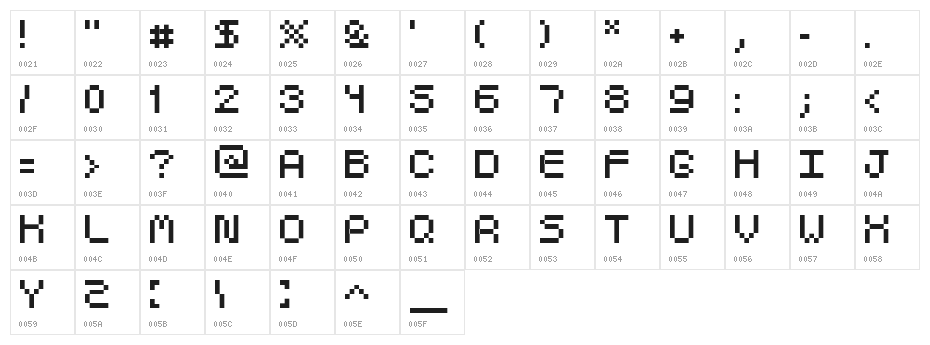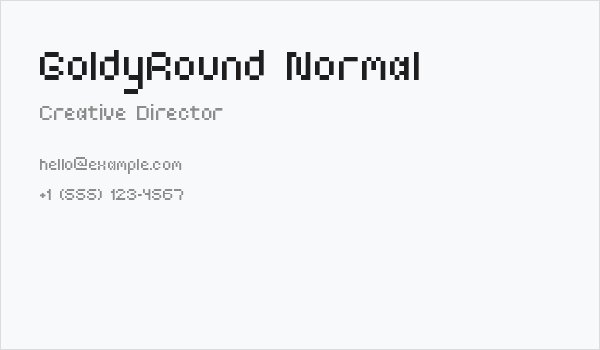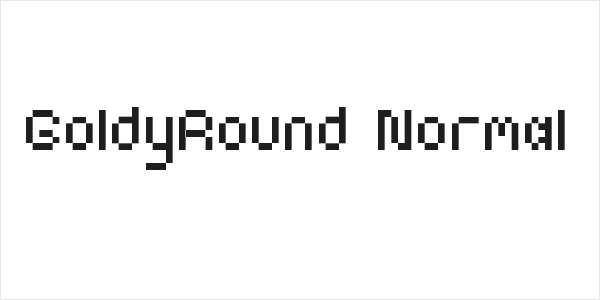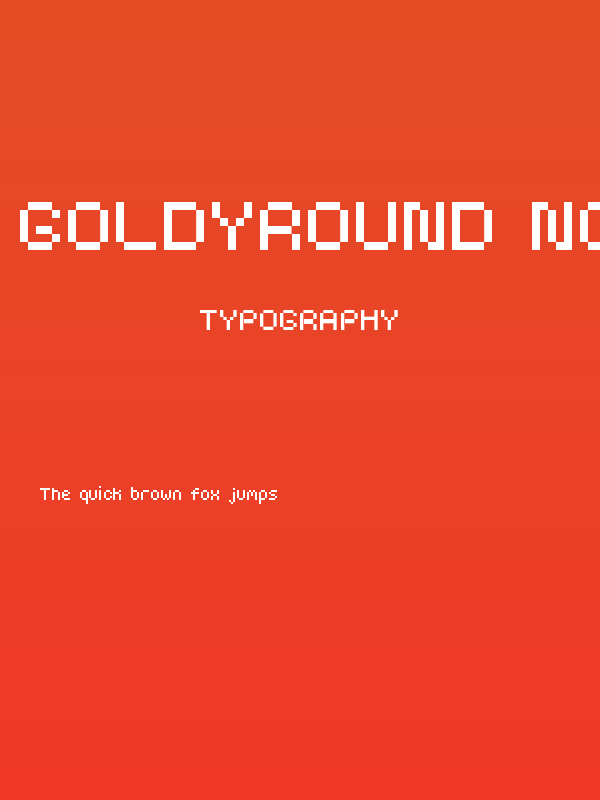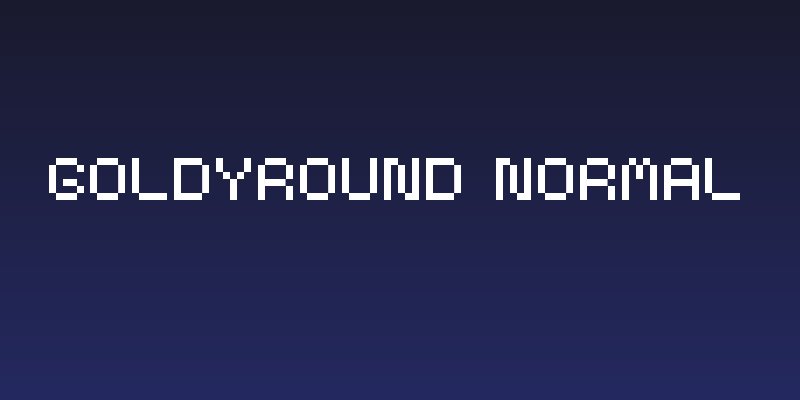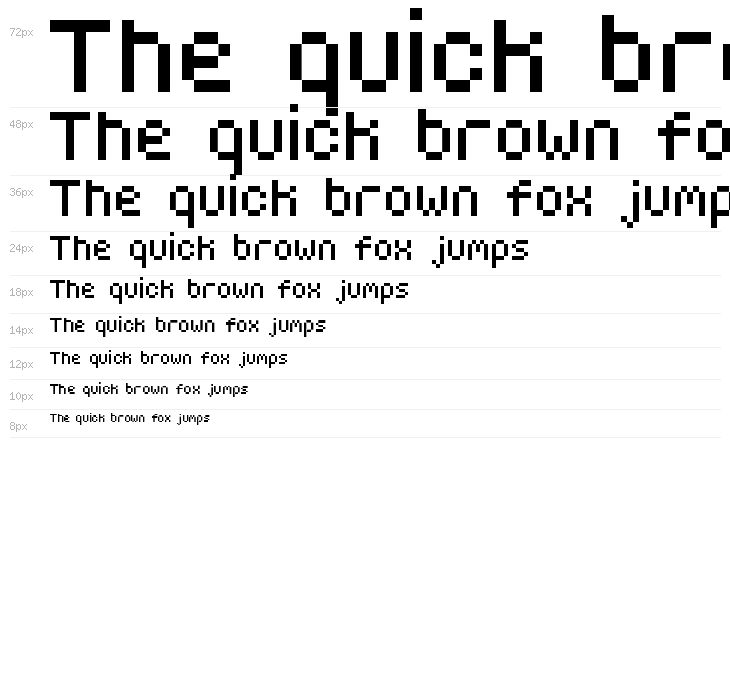
GoldyRound Normal Font
GoldyRound Normal Description
This font features a pixelated, blocky design reminiscent of early digital or video game typography. Each character is constructed with uniform square blocks, giving it a distinctly retro and digital aesthetic. The uppercase and lowercase letters maintain a consistent height, contributing to a monospaced appearance. The numerals and special characters follow the same pixelated style, ensuring uniformity across all glyphs. This font's design is highly geometric, with sharp angles and no curves, emphasizing its digital roots. The overall look is bold and impactful, making it suitable for projects that require a vintage or tech-inspired feel.
| Overall Style | Vintage |
| Use Case | Logos, Headlines, Digital Art |
| Proposed Projects | Ideal for video game design, retro-themed posters, digital art projects, and tech-related branding. |